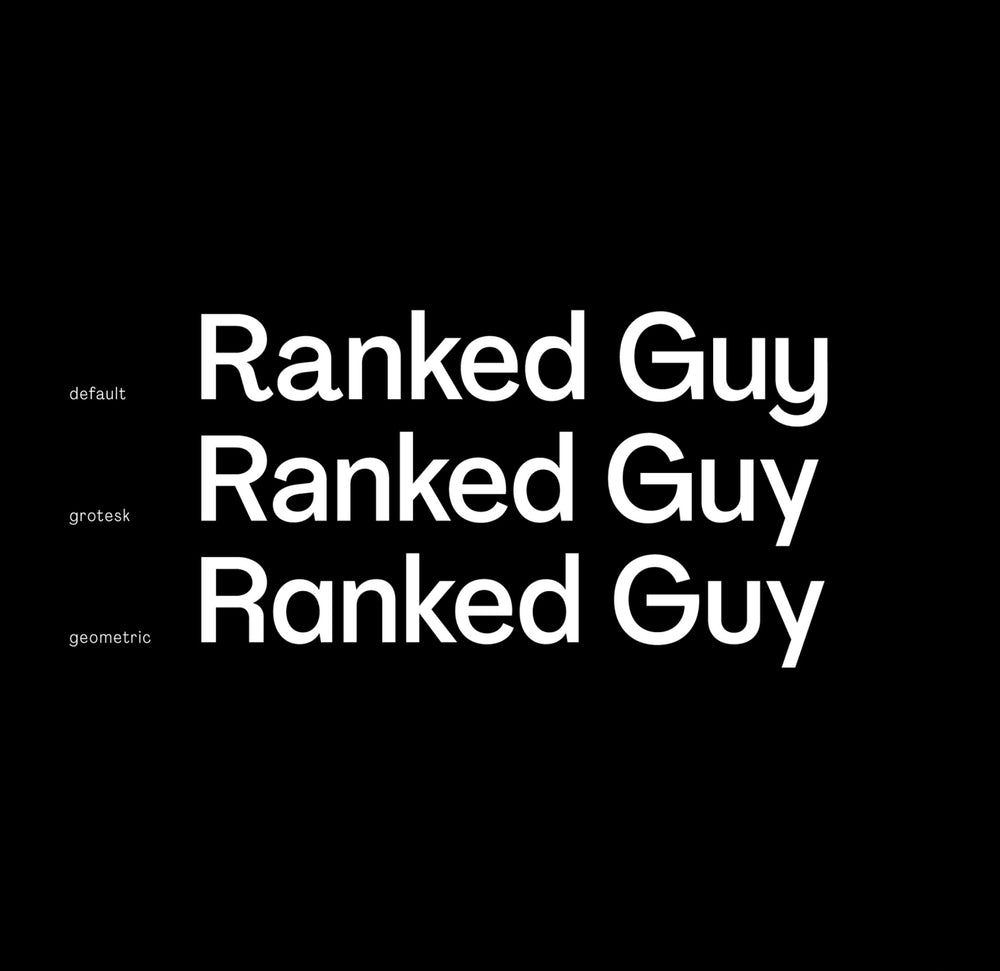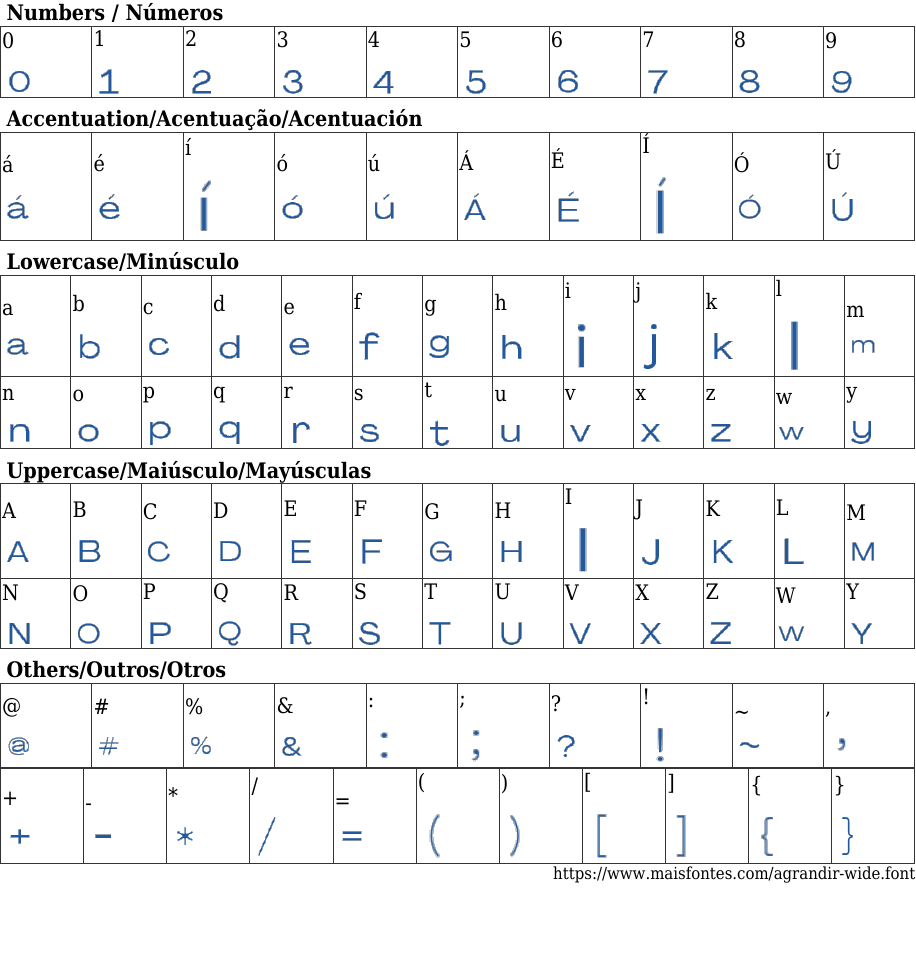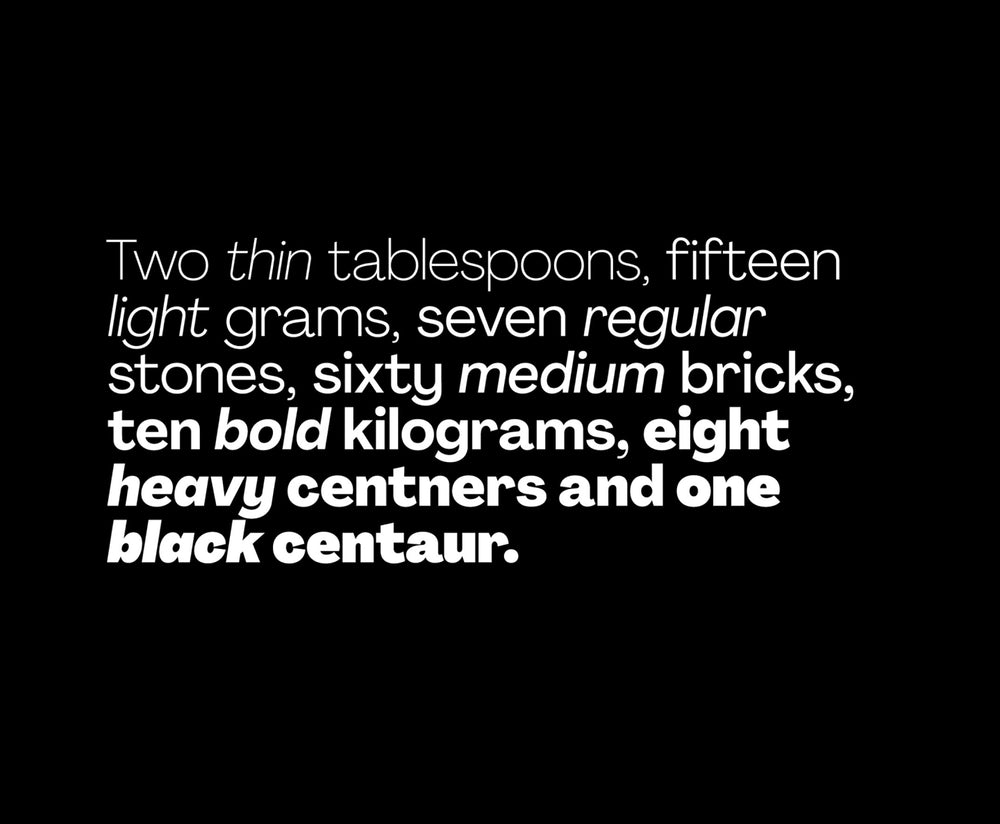
Agrandir Wide Font
Agrandir Wide Font - Agrandir is a contemporary serifless type family that celebrates the beauty of being imperfect. Agrandir font family offers seven fonts spanning 7 weights x 5 widths with italics and four text.
Agrandir font family offers seven fonts spanning 7 weights x 5 widths with italics and four text. Agrandir is a contemporary serifless type family that celebrates the beauty of being imperfect.
Agrandir is a contemporary serifless type family that celebrates the beauty of being imperfect. Agrandir font family offers seven fonts spanning 7 weights x 5 widths with italics and four text.
Agrandir font family offers seven fonts spanning 7 weights x 5 widths with italics and four text. Agrandir is a contemporary serifless type family that celebrates the beauty of being imperfect.
Agrandir is a contemporary serifless type family that celebrates the beauty of being imperfect. Agrandir font family offers seven fonts spanning 7 weights x 5 widths with italics and four text.
Agrandir Is A Contemporary Serifless Type Family That Celebrates The Beauty Of Being Imperfect.
Agrandir font family offers seven fonts spanning 7 weights x 5 widths with italics and four text.